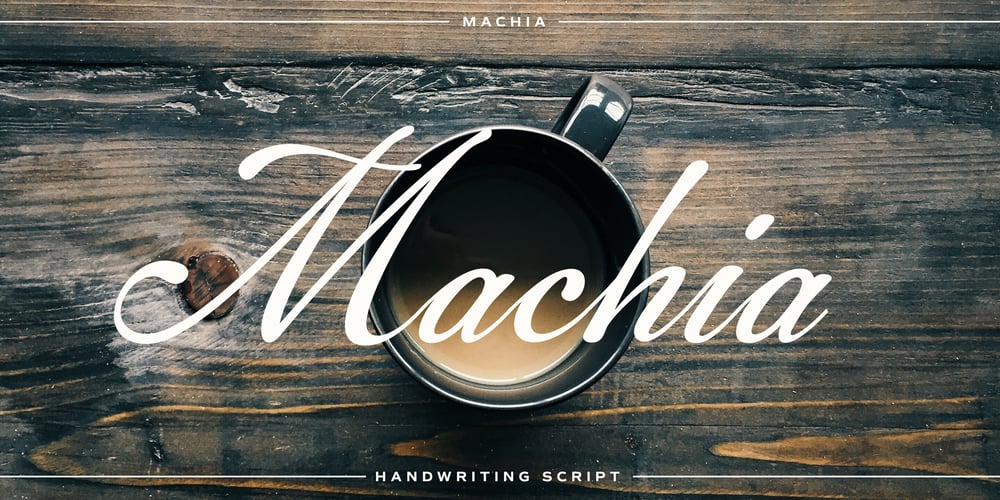
Machia Font Family was designed by Ryoichi Tsunekawa and published by Dharma Type. Machia contains 3 styles and family package options. Handwriting script with more than enough ink. Rising Stars of My Fonts on September 2006.